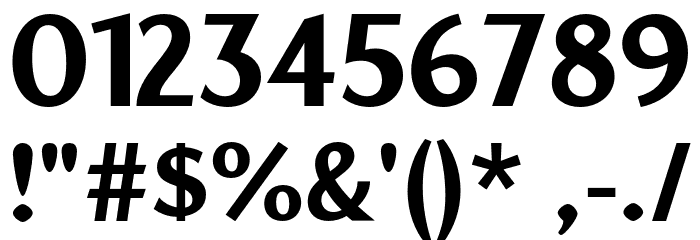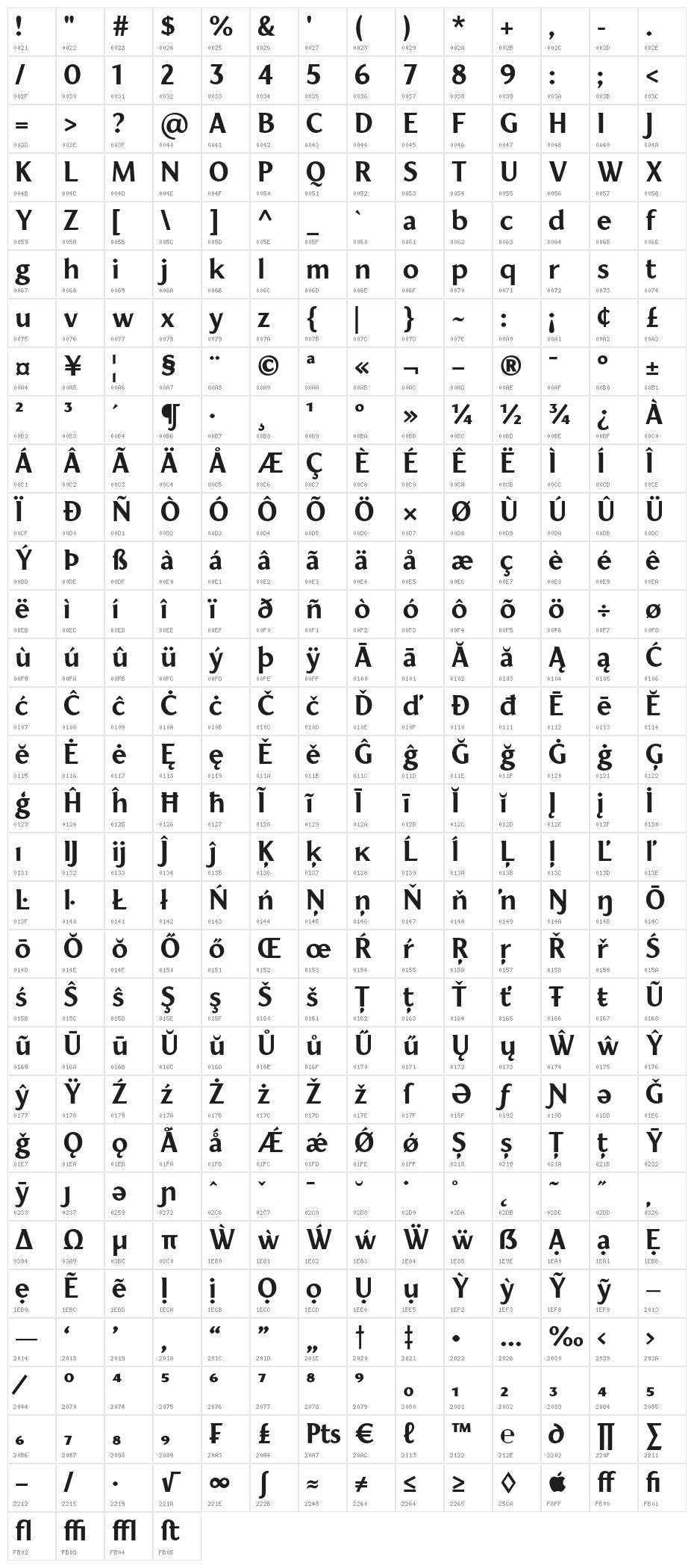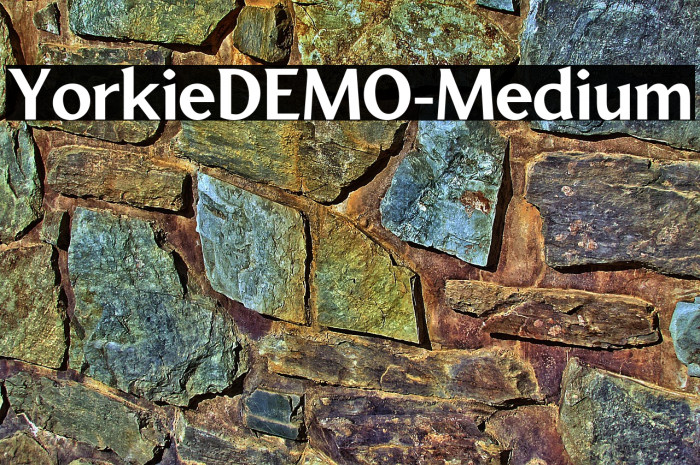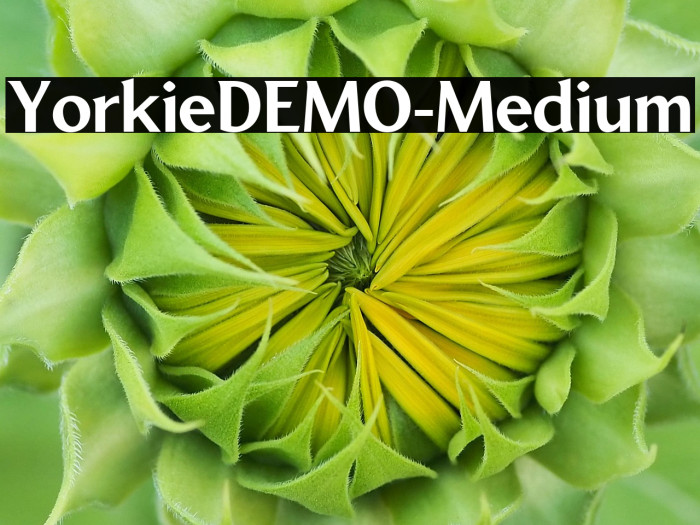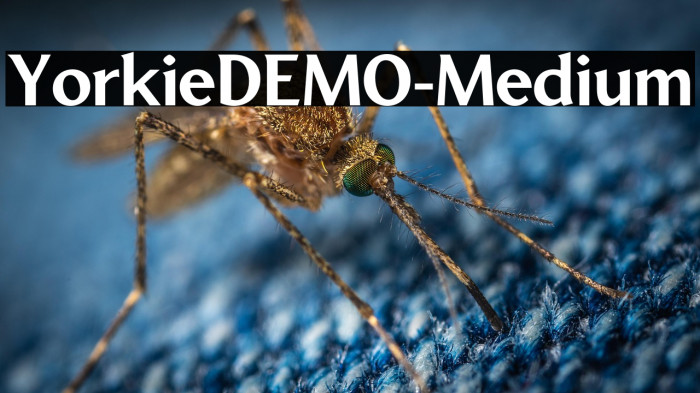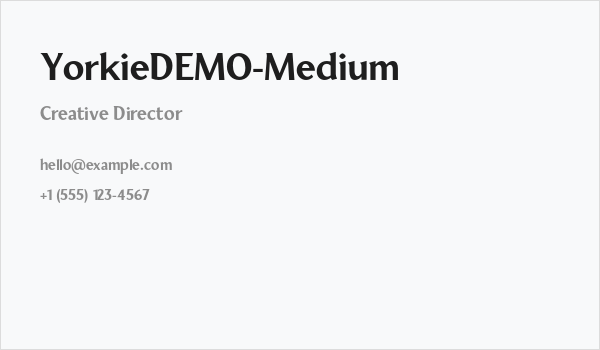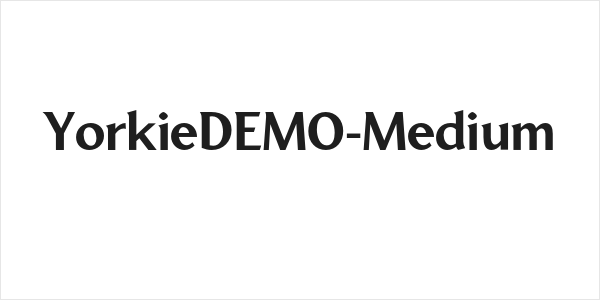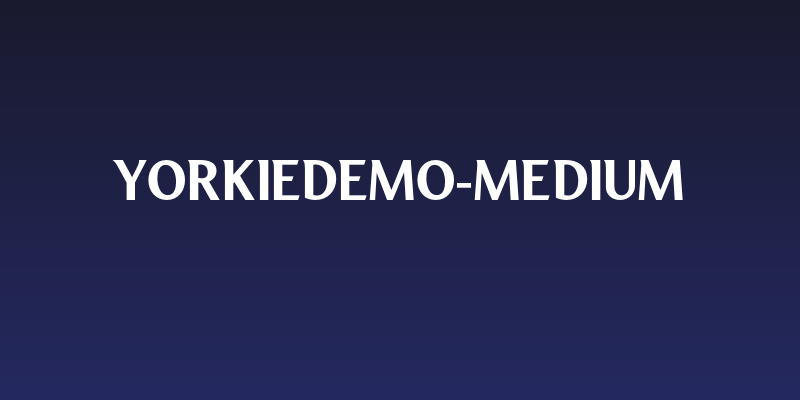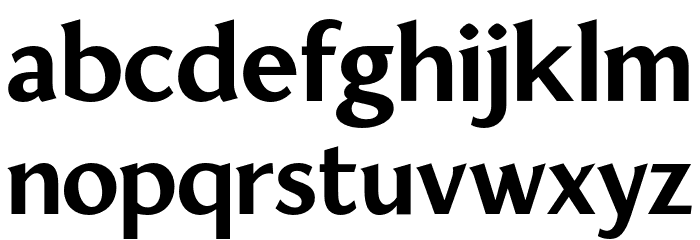
YorkieDEMO-Medium Font
YorkieDEMO-Medium Description
This font features a bold and confident serif style, characterized by strong, clean lines and a modern aesthetic. The uppercase letters are slightly condensed, giving a compact and efficient appearance, while the lowercase letters maintain a balanced and harmonious flow. The numerals are clear and easily distinguishable, making them suitable for both display and text purposes. The special characters are well-integrated, maintaining the overall style and ensuring versatility in various design contexts. The font's design is both functional and stylish, making it suitable for a wide range of applications.